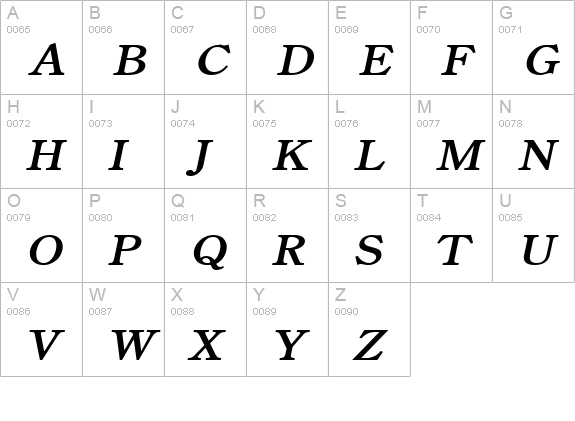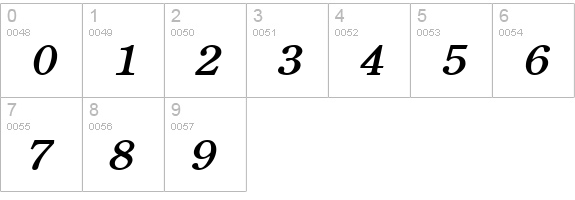
Cento Bold Italic is a strong, high-contrast, italic variant in the Cento typeface family \xE2\x80\x94 well suited to headlines, attention-grabbing titles, and strong calls-to-action.
Cento Bold Italic font is a striking and sophisticated typeface that exudes elegance and modernity. Its bold, italicized design commands attention and adds a touch of flair to any project. The unique combination of thick strokes and slanted angles creates a sense of dynamism and movement, making Cento Bold Italic perfect for headlines, titles, and branding materials. But the best part? Cento Bold Italic font is available for free download at FontsMarket.com! This means you can easily access this stunning typeface and incorporate it into your designs without any cost. Don't miss out on the opportunity to elevate your projects with the stylish and versatile Cento Bold Italic font. Download it today and make a bold statement with your typography.